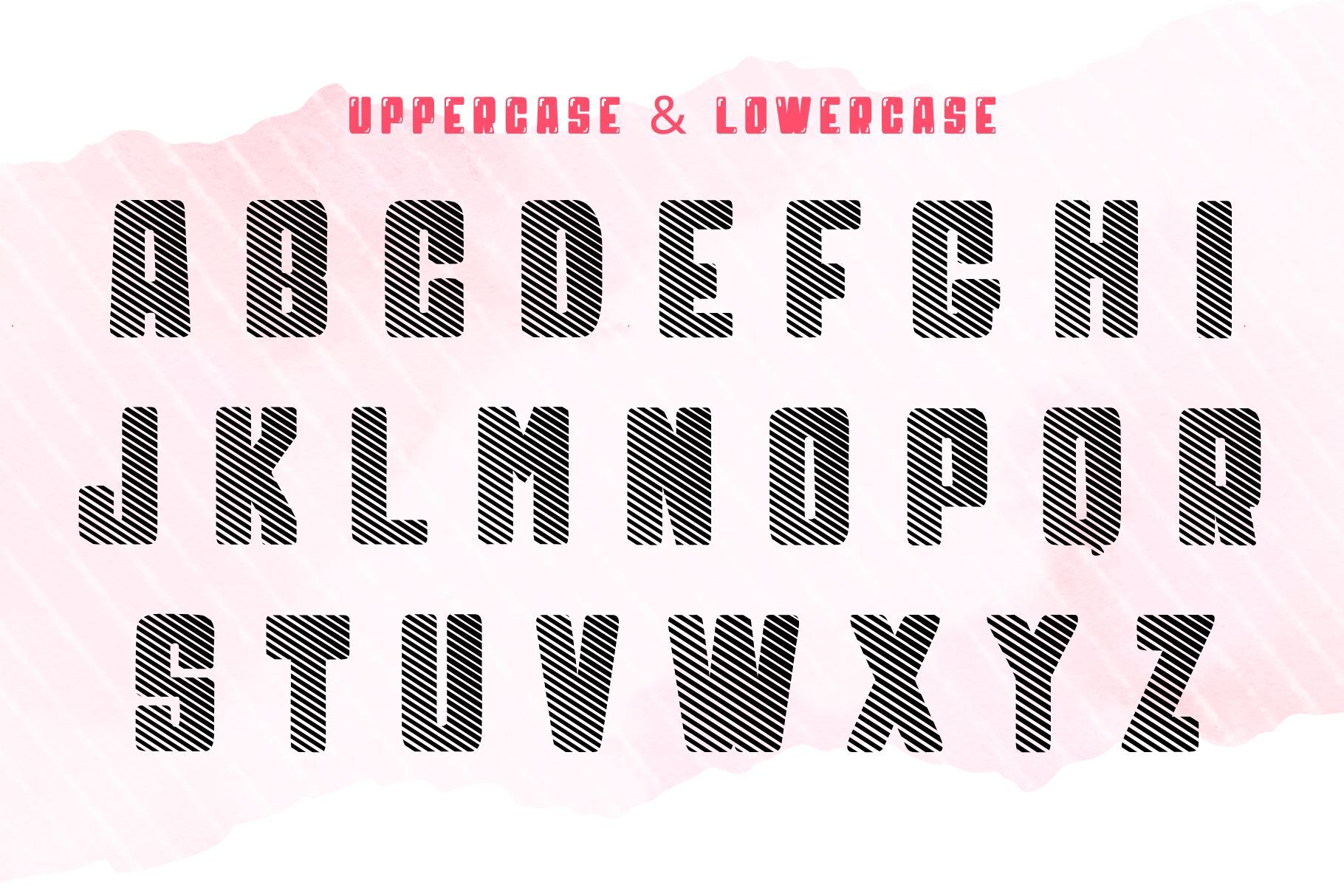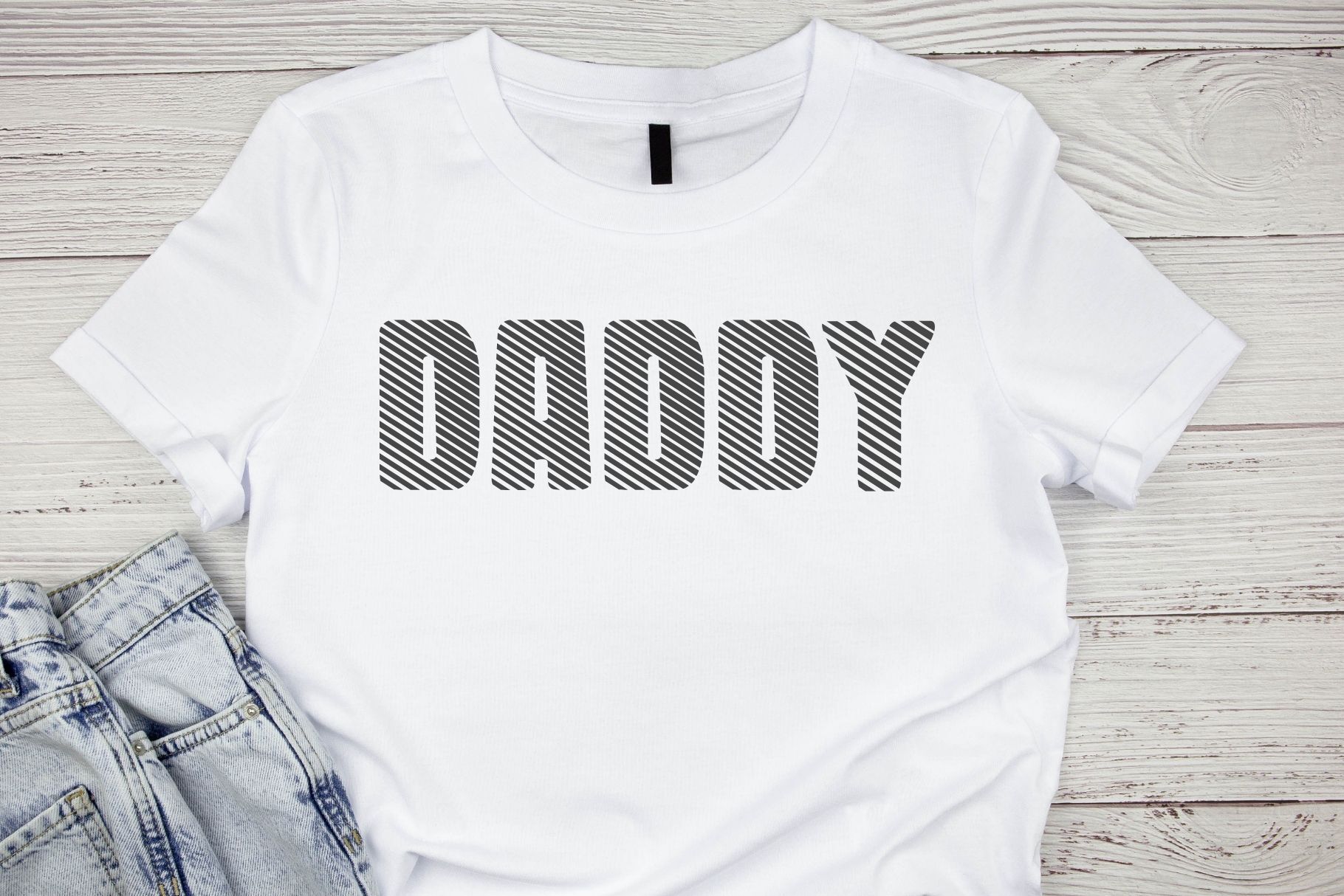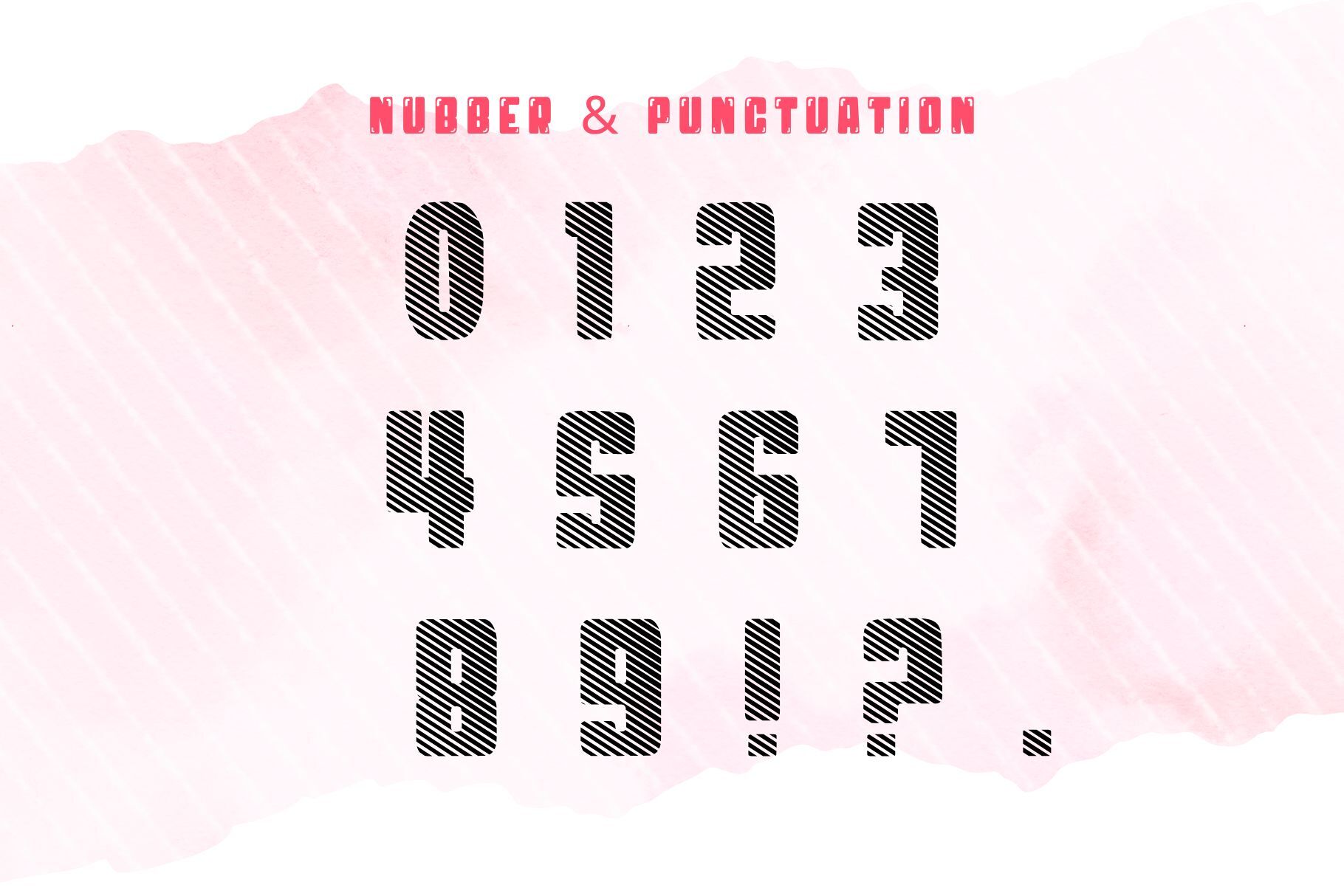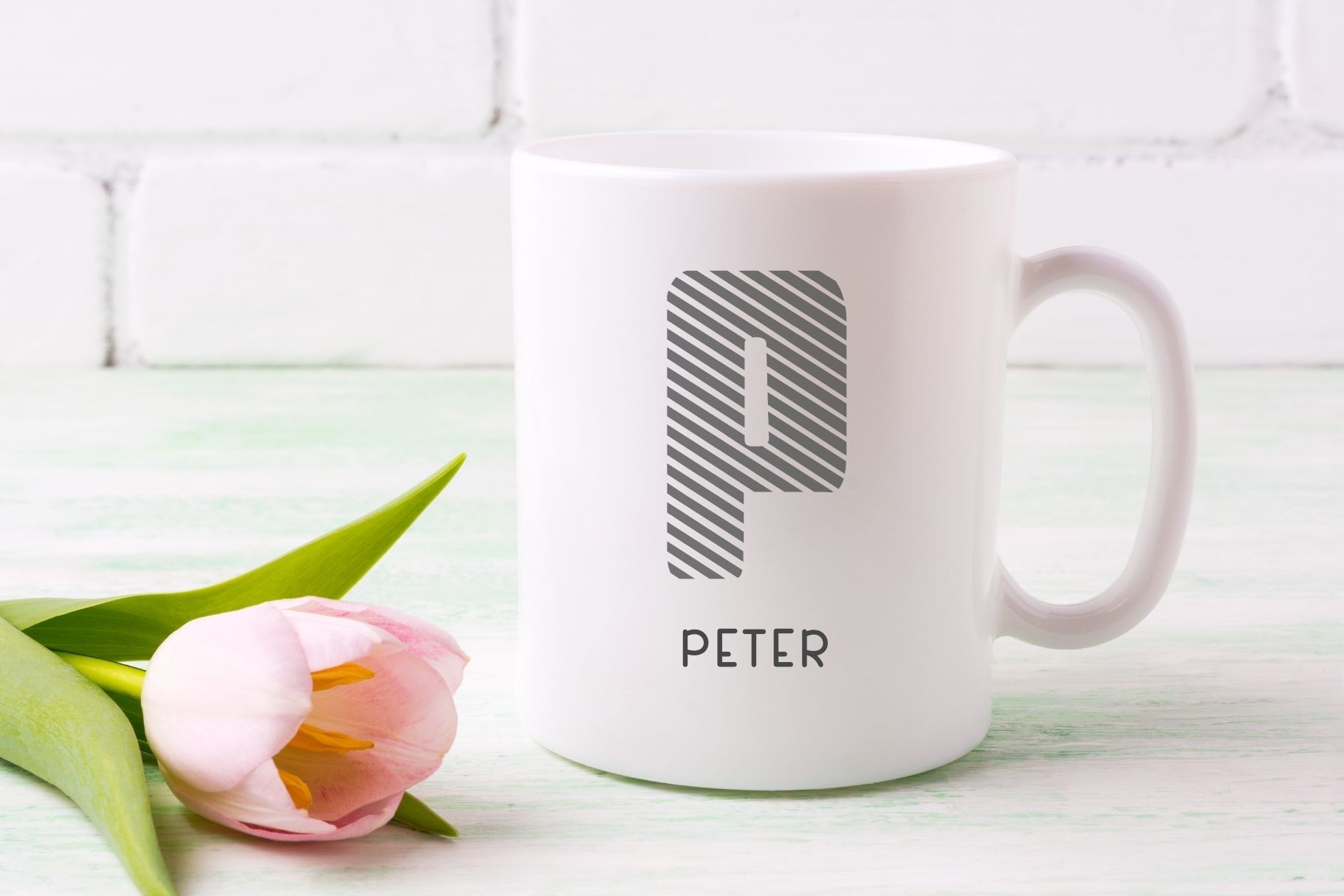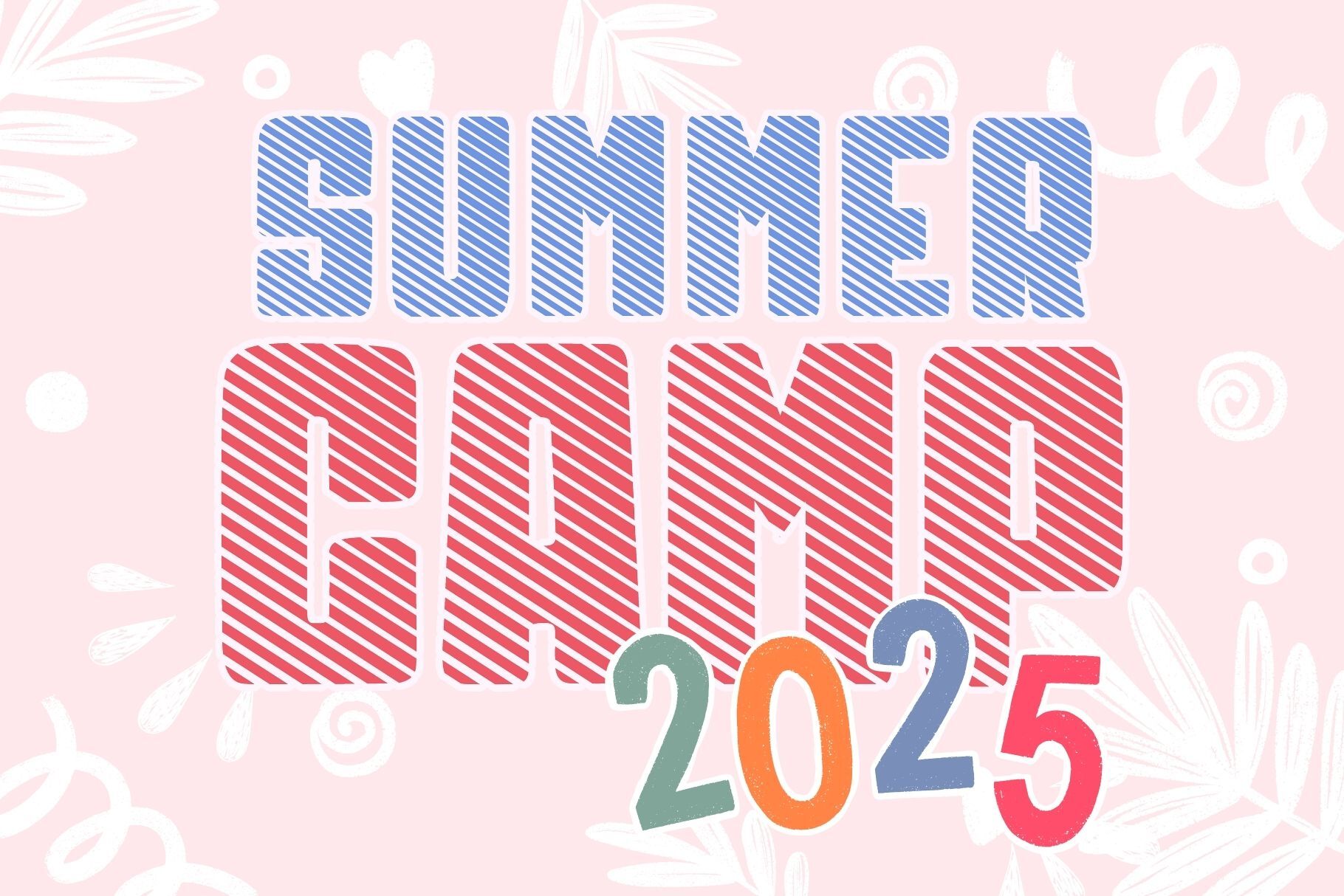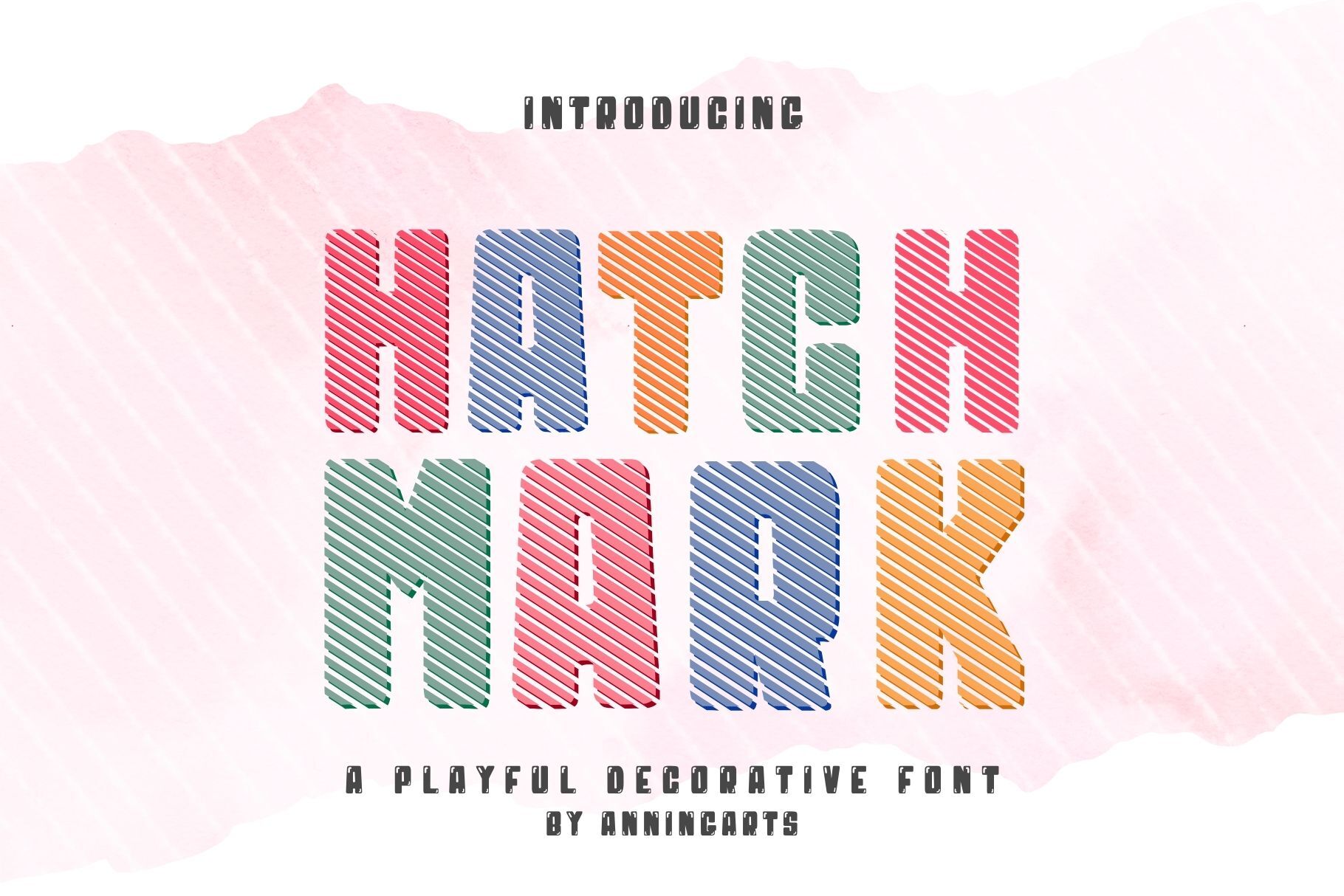
Hatch Mark - Decorative font
Hatch Mark is a bold and playful decorative font featuring diagonal hatch lines for a unique striped effect. Perfect for eye-catching designs, this display typeface is great for logos, posters, invitations, social media graphics, and DIY crafts. **You will receive 3 Files: -.ttf file 1 file. -.otf file 1 file. -.woff file 1 file. Thank you!